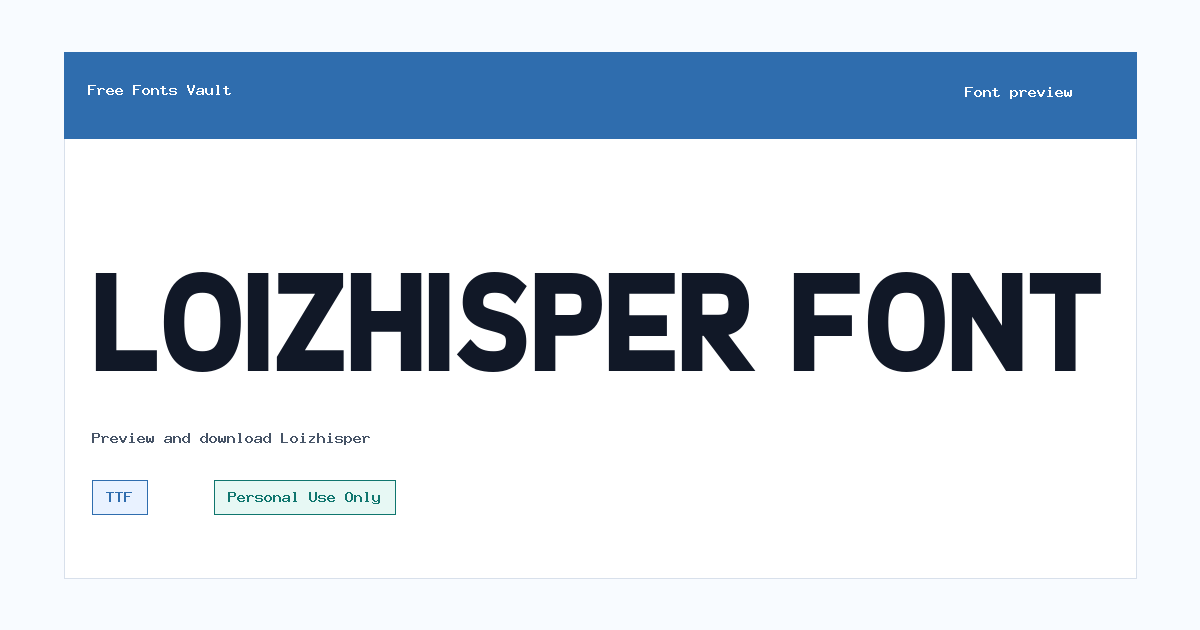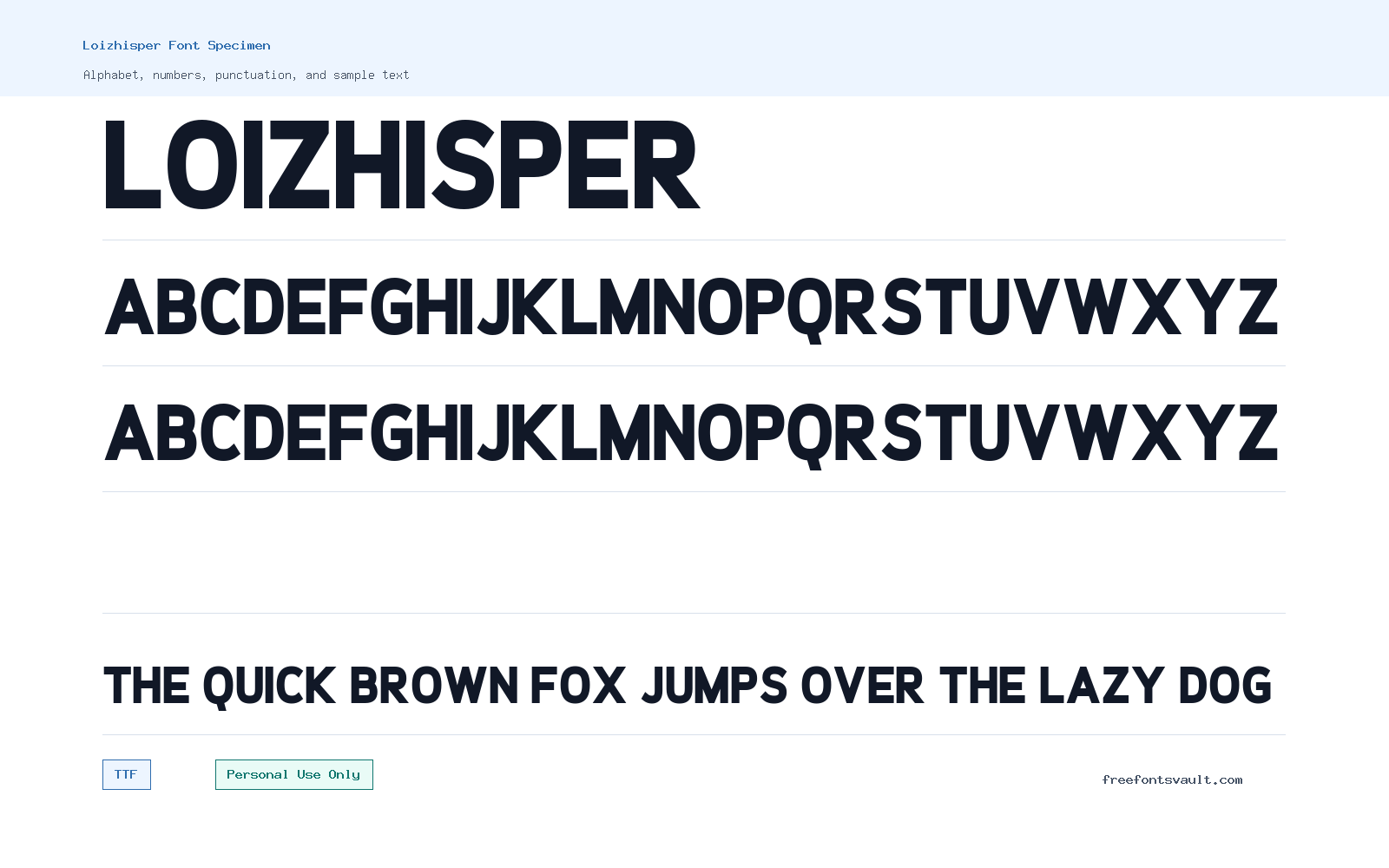
Loizhisper
Loizhisper Font
• Designer Alexa Christie
• Foundry Christie Creative
Loizhisper font.
Loizhisper is identified as a sans serif font, which usually makes it a good starting point for clean titles, display text, simple branding drafts, and layout experiments. Because the available style is regular 400, it is not a large multi-weight family; it works best when you build contrast through size, spacing, color, and pairing rather than relying on bold, light, or italic companion styles. Use the live preview to inspect its letter shapes closely before downloading, especially the uppercase forms, numerals, punctuation, and spacing between common pairs such as AV, To, Wa, and Ly.
For designers, Loizhisper is most useful when you need a straightforward sans serif voice for mockups, poster headings, social graphics, web concepts, mood boards, and personal identity studies. If you are exploring logo ideas, test the font at both small and large sizes before committing to a direction. A logo often depends on distinctive rhythm, clean spacing, and recognizable letterforms, so try the exact brand name rather than judging from sample text alone. For posters and display layouts, give the type enough breathing room and check how it handles short phrases, all caps, and mixed case. For web mockups, remember that a single regular style can look limited across a full interface; pair it with a system sans serif or a readable serif for body copy if you need stronger hierarchy.
• Sans serif classification, making it practical for clean headings, simple layouts, personal mockups, and short display text.
• Single-style setup that encourages careful use of size, spacing, and pairing to create visual contrast.
• Website mockups, landing page drafts, and interface studies where a clean sans serif title style is needed.
Loizhisper is credited to Alexa Christie, with Christie Creative listed as the foundry. The designer and foundry credit should be kept intact when referencing the font.
Who designed Loizhisper?
Loizhisper is credited to Alexa Christie, with Christie Creative listed as the foundry.
What kind of font is Loizhisper?
Loizhisper is described as a sans serif font. That makes it a practical option to test for clean headings, display text, layout drafts, and personal design work.
Is Loizhisper good for body text?
Test it carefully before using it for long reading. With only a regular style listed, it may be more flexible for headings, short text, and mockups than for full editorial layouts.